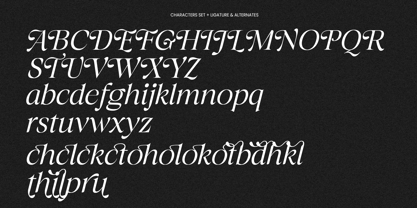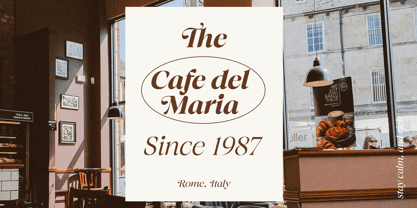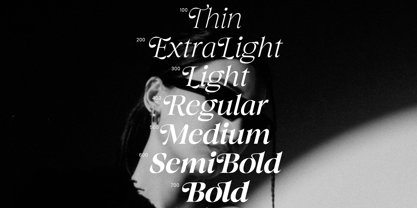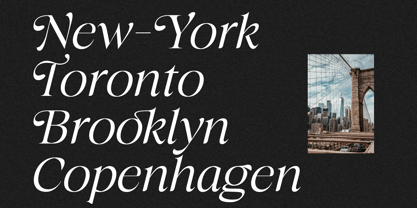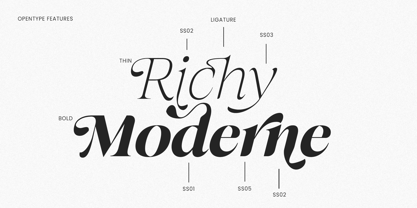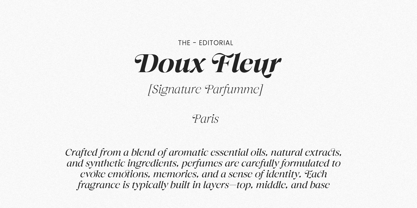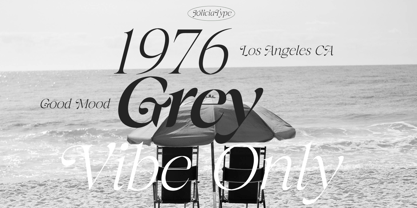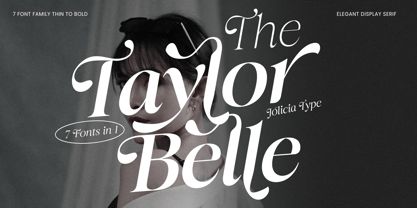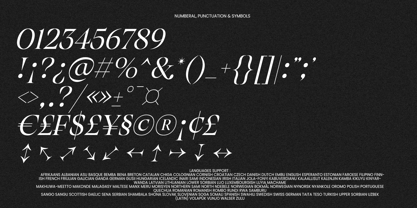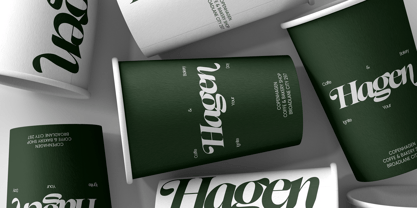
Taylor Belle
by Jolicia Type
The Taylor Belle Font Family was designed by Laire Banyu, Dyaharum Pungki Revitasari and published by Jolicia Type. Taylor Belle contains 7 styles and family package options. More about this family
Taylor Belle is a captivating serif display font that radiates femininity and timeless elegance. Designed with graceful curves and refined details, its uppercase letters feature delicate swirls and flowing strokes that add a touch of sophistication and beauty. This typeface comes with 7 versatile weights, ranging from Thin to Bold, offering flexibility for both minimal and bold design concepts.
Enhanced with 17 OpenType alternates and 8 elegant ligatures, Taylor Belle allows you to explore creative typographic variations, adding a unique and artistic touch to your designs. The true italic style further elevates its charm, providing a more romantic and stylish look for invitations, branding, or editorial layouts.
Perfect for fashion, beauty, wedding stationery, and high-end branding, Taylor Belle is the ultimate choice for projects that require a luxurious, feminine, and modern aesthetic.
Taylor Belle also supports more than 90 languages, including: Afrikaans, Albanian, Asu, Basque, Bemba, Bena, Breton, Catalan, Chiga, Colognian, Cornish, Croatian, Czech, Danish, Dutch, Embu, English, Esperanto, Estonian, Faroese, Filipino, Finnish, French, Friulian, Galician, Ganda, German, Gusii, Hungarian, Icelandic, Inari Sami, Indonesian, Irish, Italian, Jola-Fonyi, Kabuverdianu, Kalaallisut, Kalenjin, Kamba, Kikuyu, Kinyarwanda, Latvian, Lithuanian, Lower Sorbian, Luo, Luxembourgish, Luyia, Machame, Makhuwa-Meetto, Makonde, Malagasy, Maltese, Manx, Meru, Morisyen, Northern Sami, North Ndebele, Norwegian Bokmål, Norwegian Nynorsk, Nyankole, Oromo, Polish, Portuguese, Quechua, Romanian, Romansh, Rombo, Rundi, Rwa, Samburu, Sango, Sangu, Scottish Gaelic, Sena, Serbian, Shambala, Shona, Slovak, Slovenian, Soga, Somali, Spanish, Swahili, Swedish, Swiss German, Taita, Teso, Turkish, Upper Sorbian, Uzbek (Latin), Volapük, Vunjo, Walser, and Zulu.